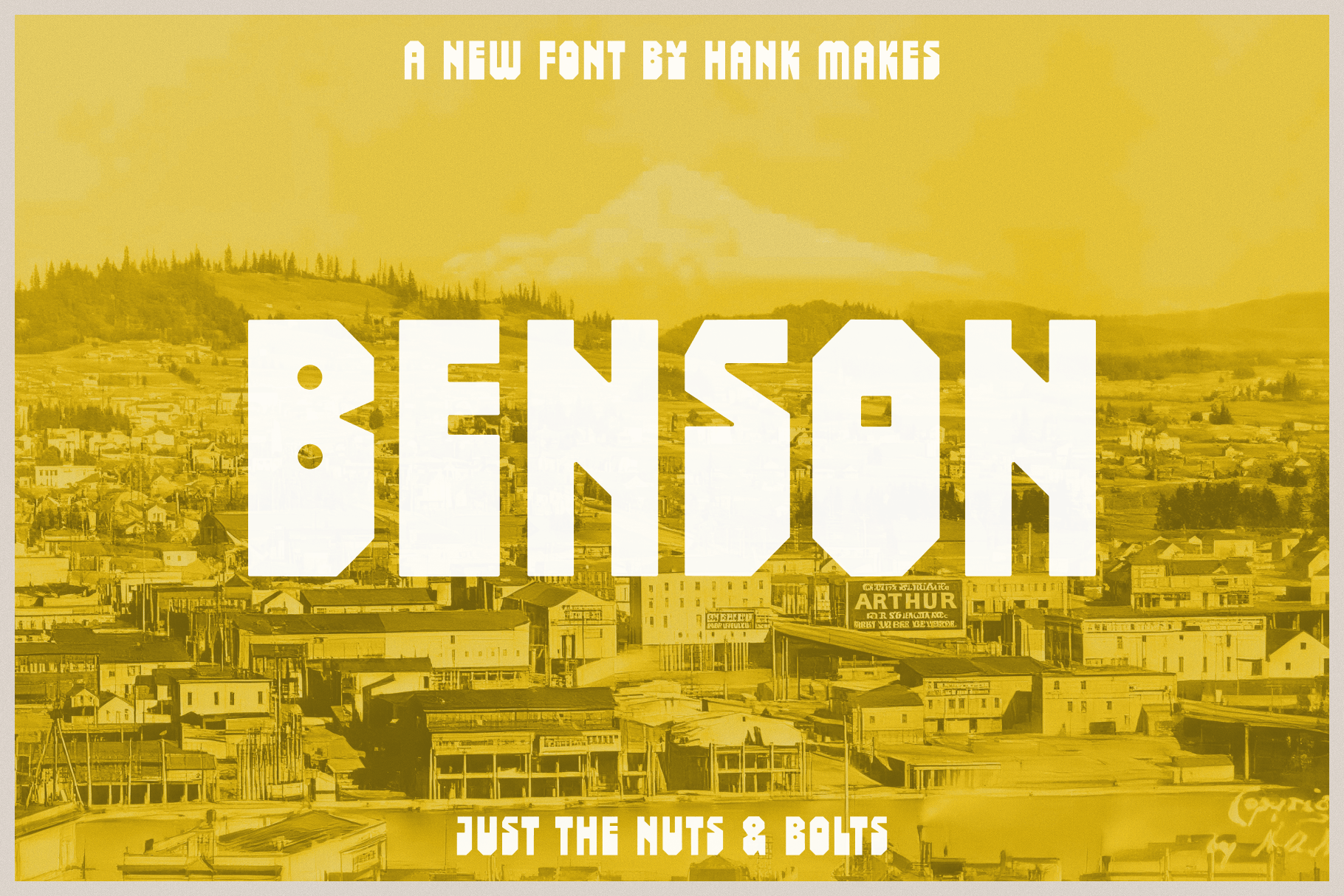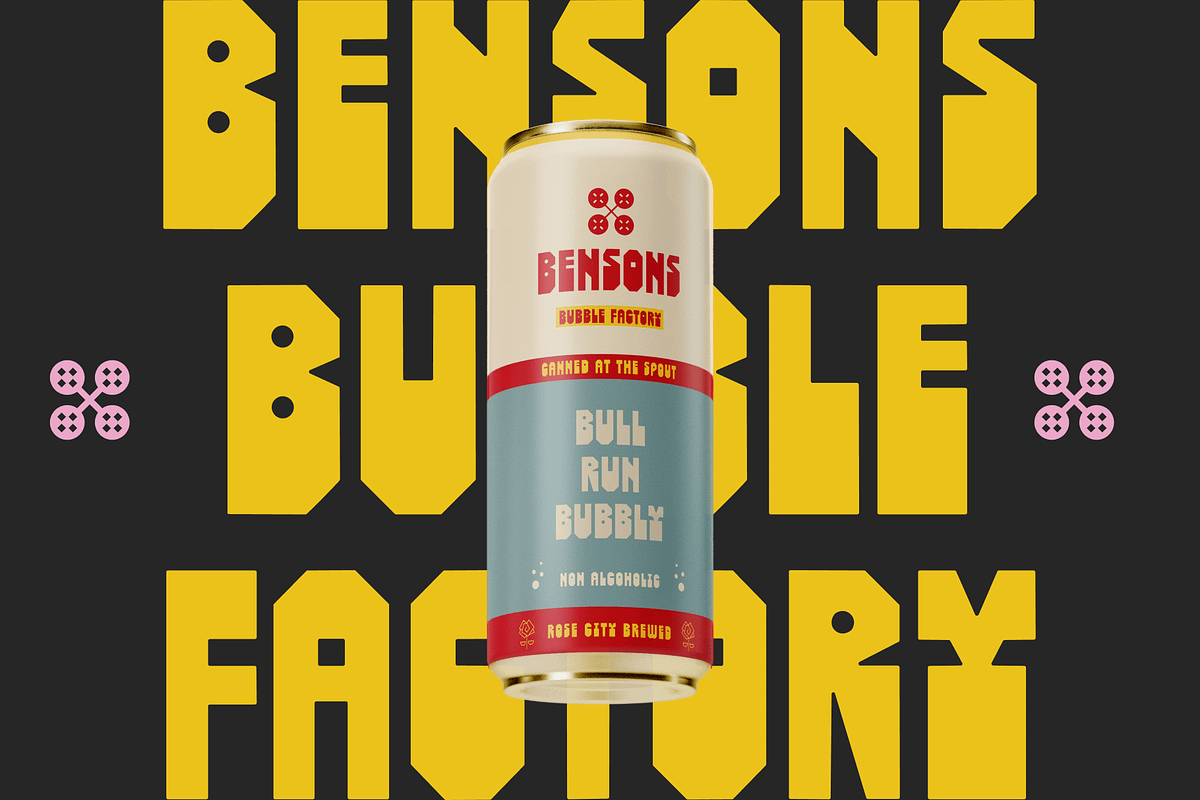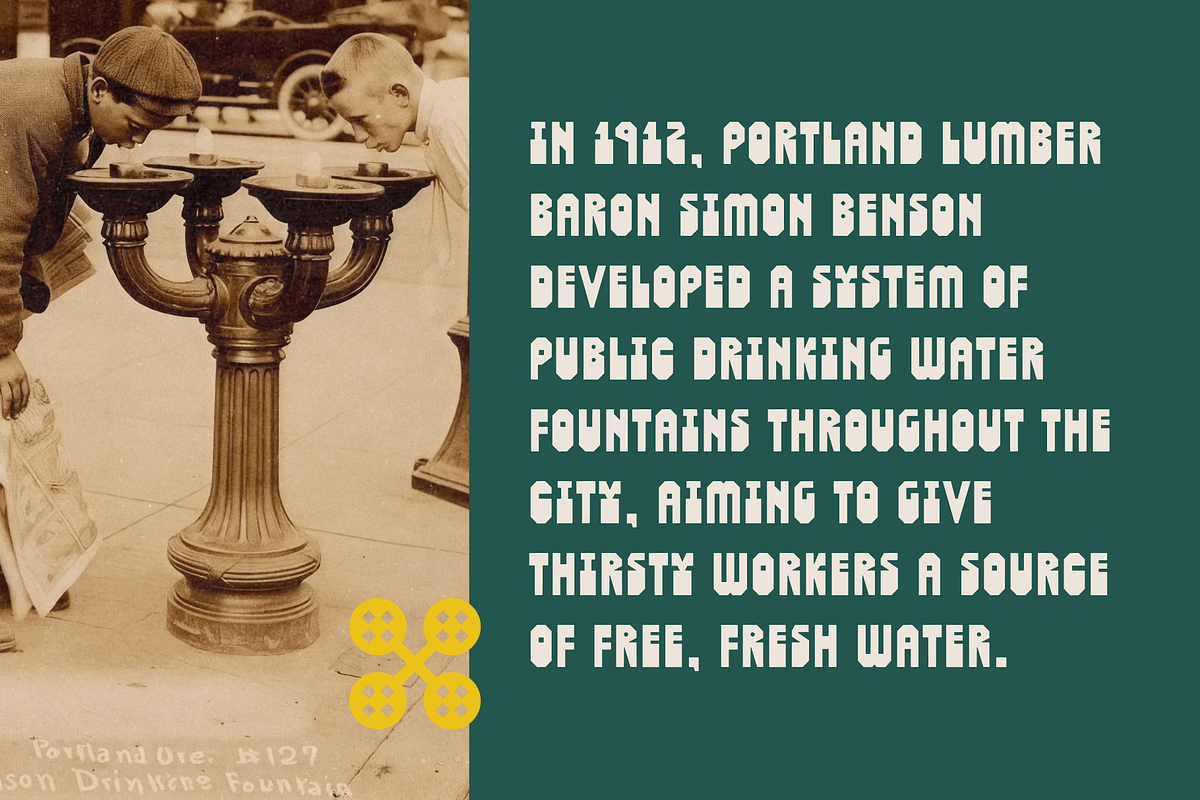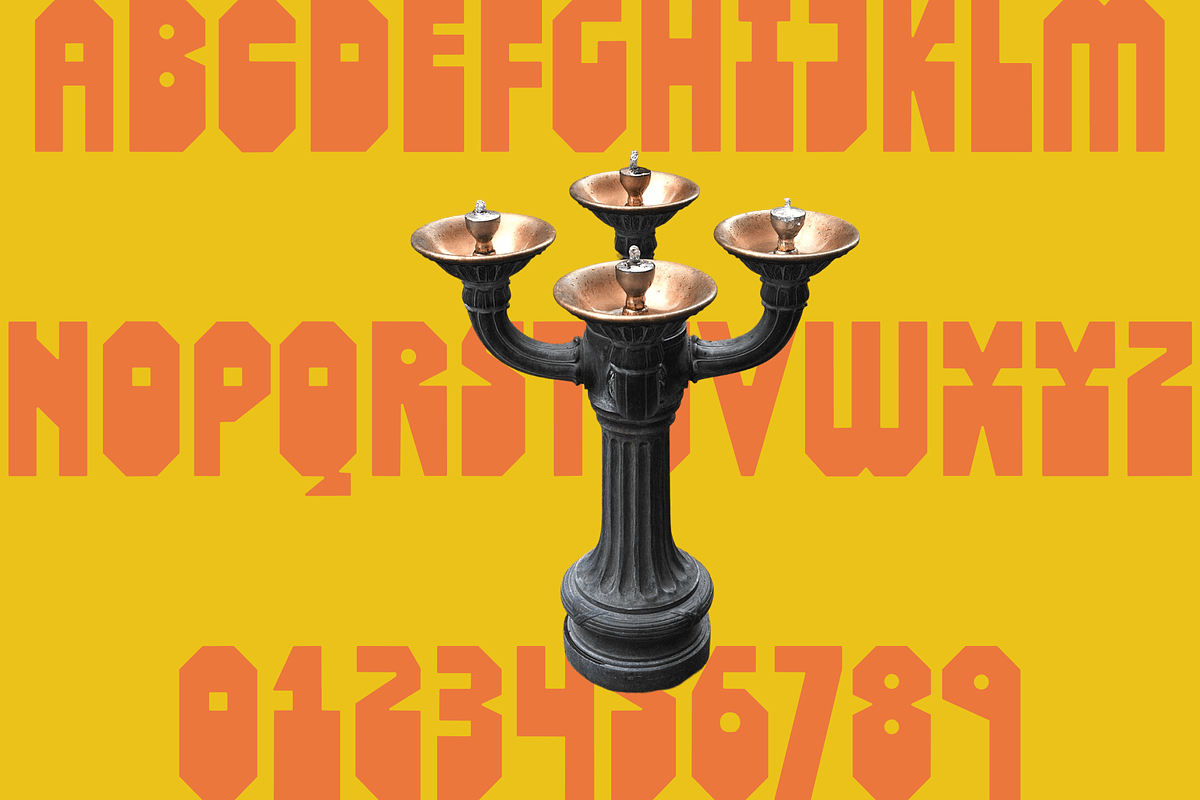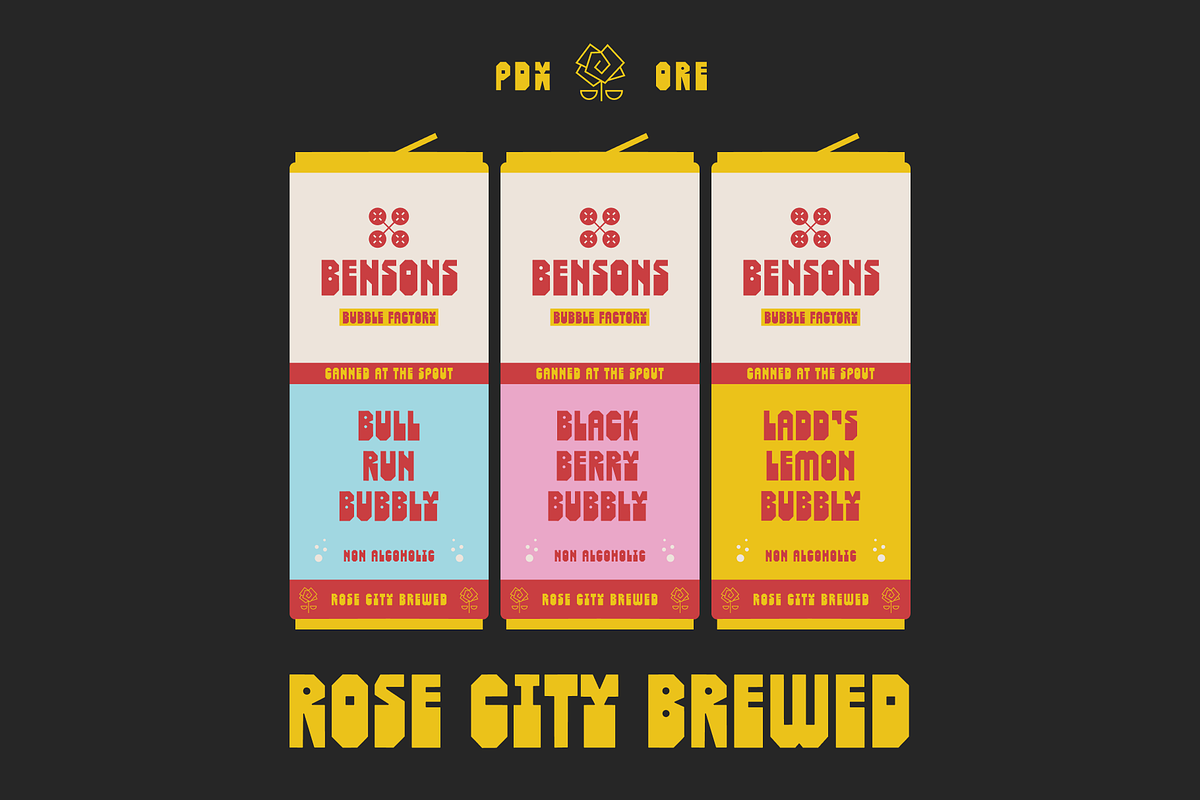
Benson, a Hank Makes Font
Introducing Benson! A display font by Hank Makes inspired by the Benson Bubblers of Portland Oregon.
In 1912, Portland lumber baron Simon Benson developed a system of public drinking water fountains throughout the city, aiming to give thirsty workers a source of free, fresh water.